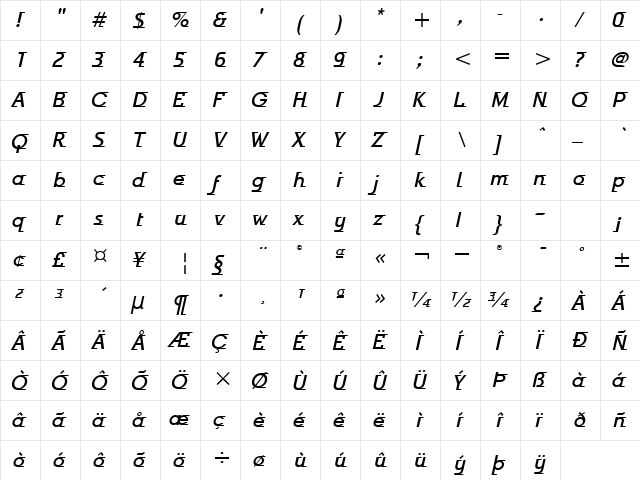
Odyssee Md ITC TT MediumItalic
Design Context for Odyssee Md ITC TT Typeface
Odyssee Md ITC TT takes a measured approach to typography — its balanced proportions and neutral character make it a reliable workhorse for both digital and print work. The dynamic lean of this cut emphasises speed and emphasis in any layout.
Pro Tip: Use Odyssee Md ITC TT for emphasis, pull quotes, and subheadings where its slanted energy can add rhythm to the layout.